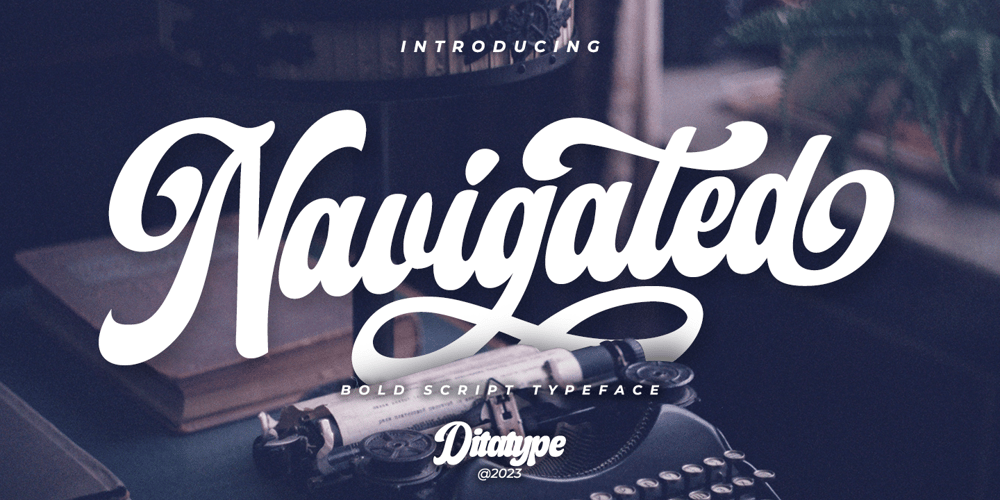
Navigated Font Family was designed by Donis Miftahudin and published by Ditatype. Navigated contains 1 styles and family package options. Introducing Navigated, a captivating script font that seamlessly combines boldness with balance. Navigated showcases a unique connected letterform design, where each letter is expertly linked, resulting in a fluid and harmonious appearance. With consistent proportions and a low-contrast style, Navigated offers both stability.Adding a touch of flair to Navigated, you’ll find striking swinging endings on select letters. These graceful flourishes bring an element of charm and sophistication to your words, making them stand out with a captivating visual appeal. Navigated fits in headlines, logos, posters, flyers, branding materials, print media, editorial layouts, and many more designs. Find out more ways to use this font by taking a look at the font preview.